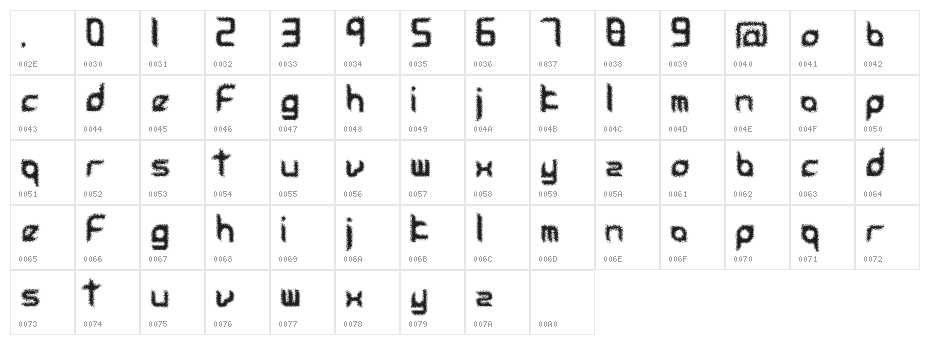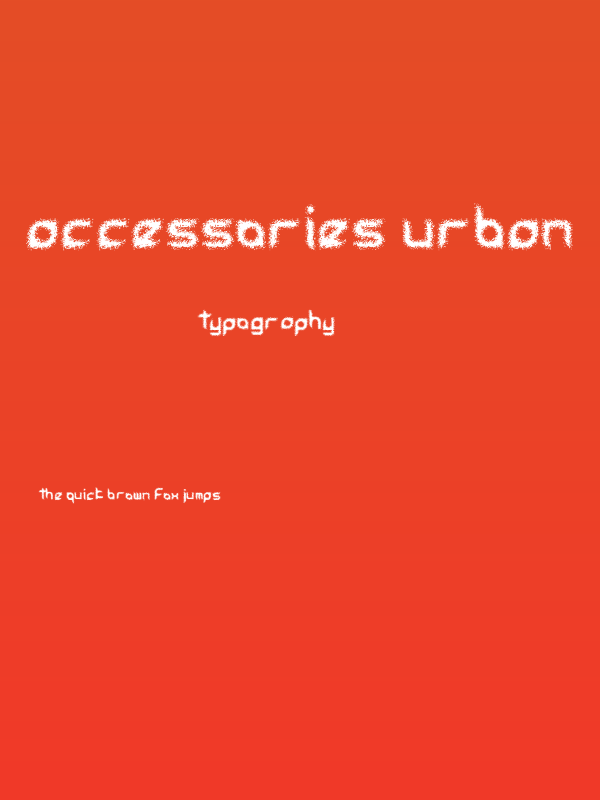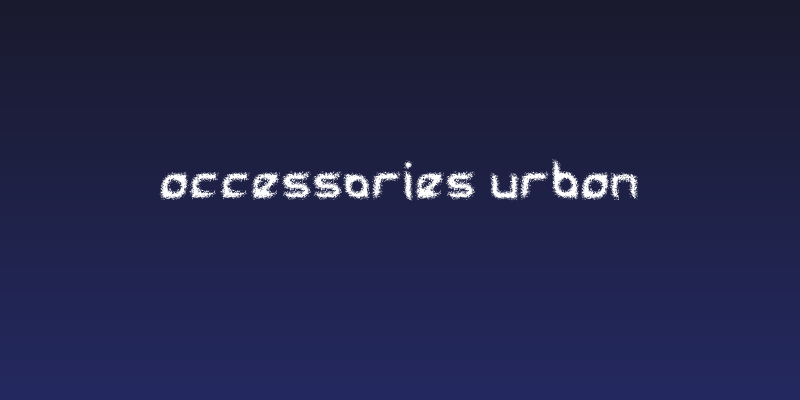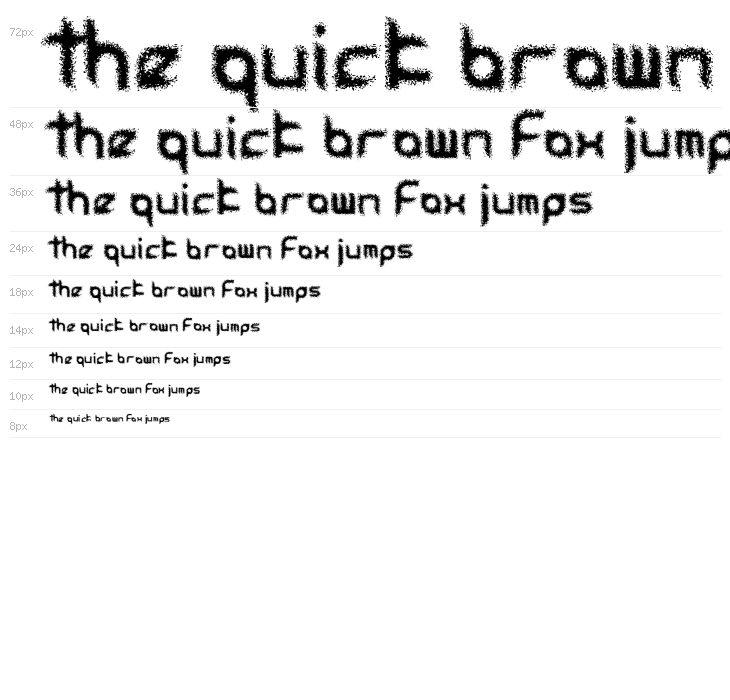
accessories urban Font
accessories urban Description
This font features a unique, textured appearance that gives each character a fuzzy, almost pixelated look. The letters are rounded and bold, with a playful and artistic style that stands out. The uppercase and lowercase letters are consistent in their design, maintaining the same textured effect throughout. Numbers and special characters follow the same design principles, ensuring a cohesive look across all glyphs. This font is ideal for projects that require a distinctive and creative touch, offering a modern twist on traditional typography.
| Proposed Projects | Ideal for creative projects such as posters, album covers, and digital art where a unique and eye-catching font is needed. |